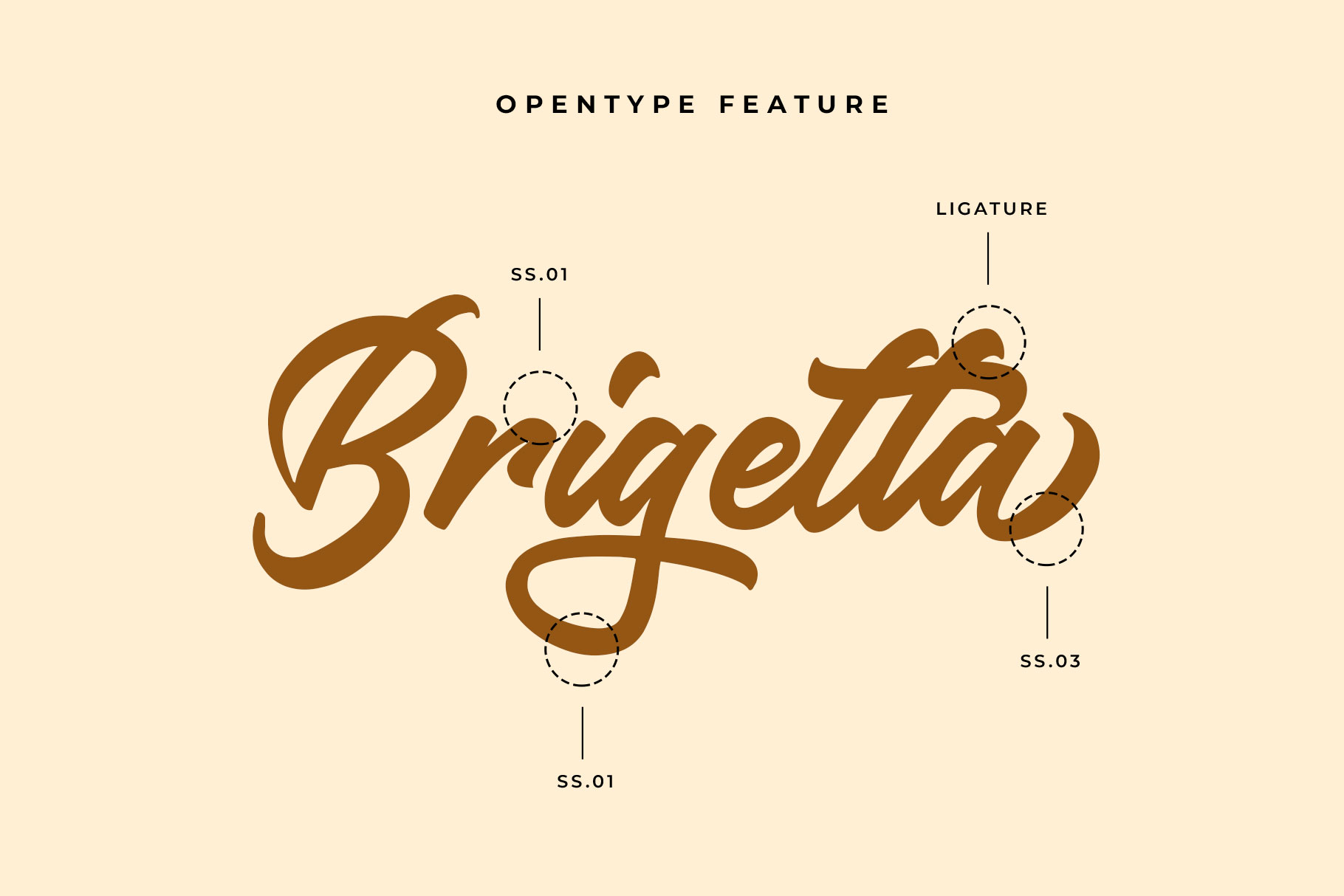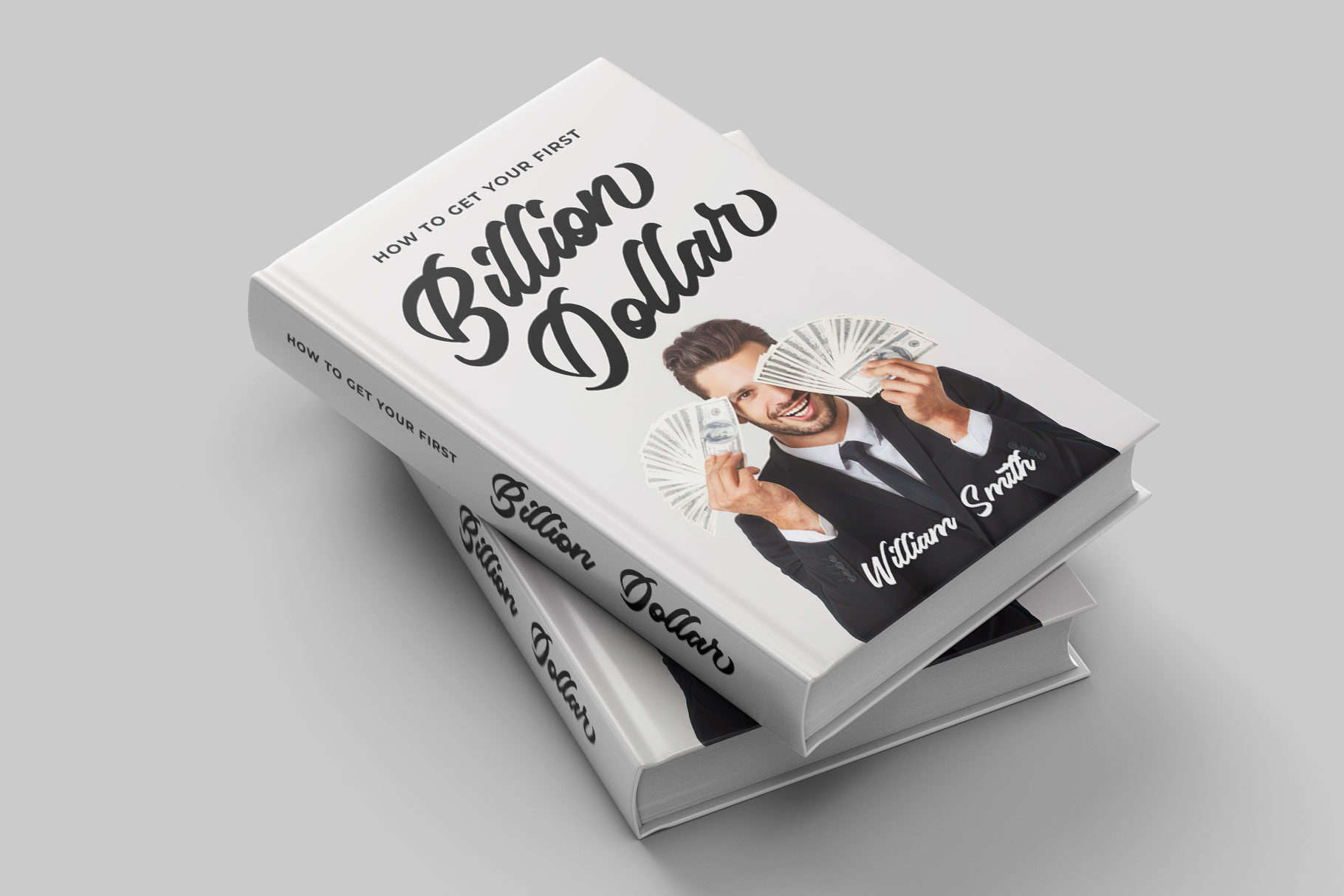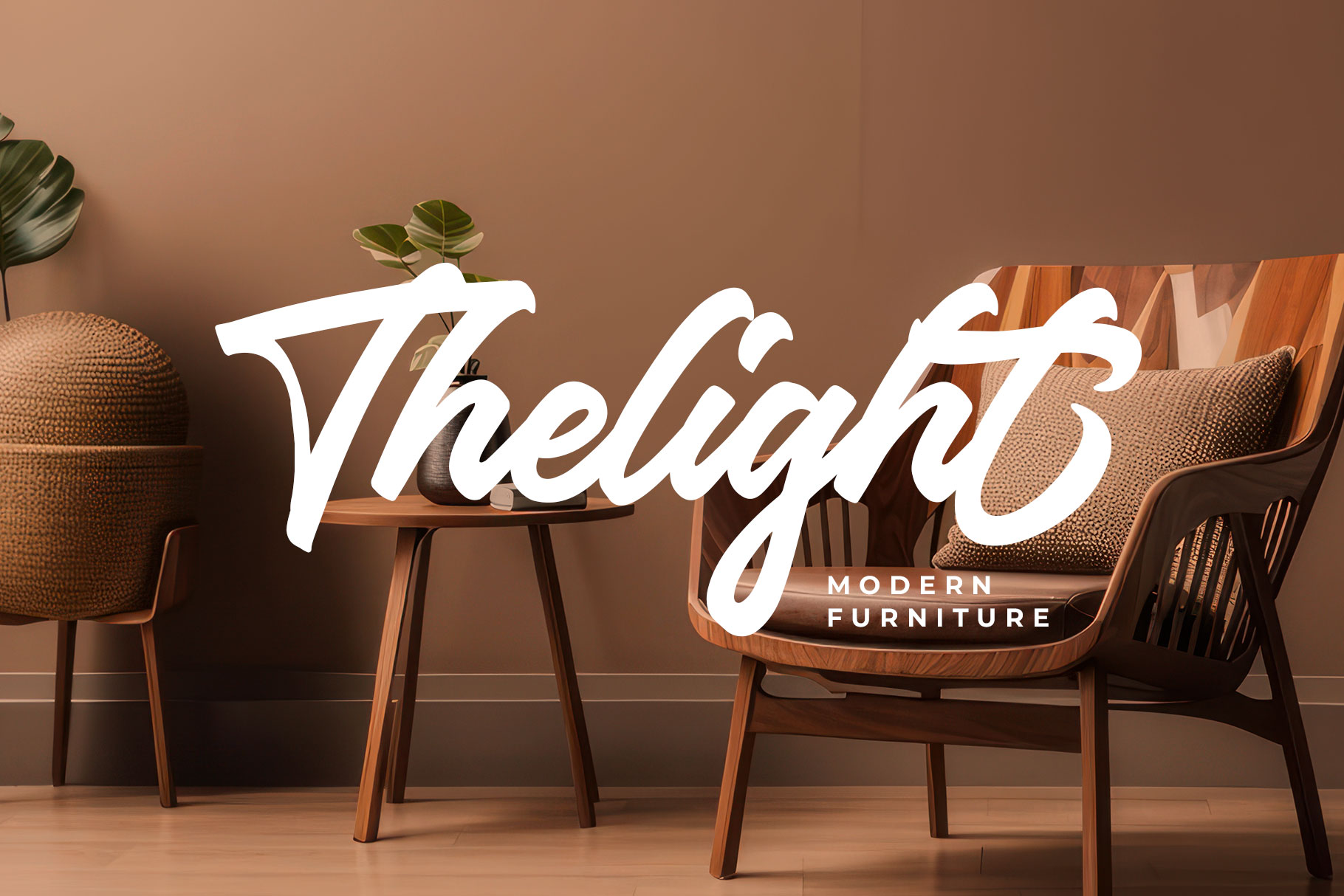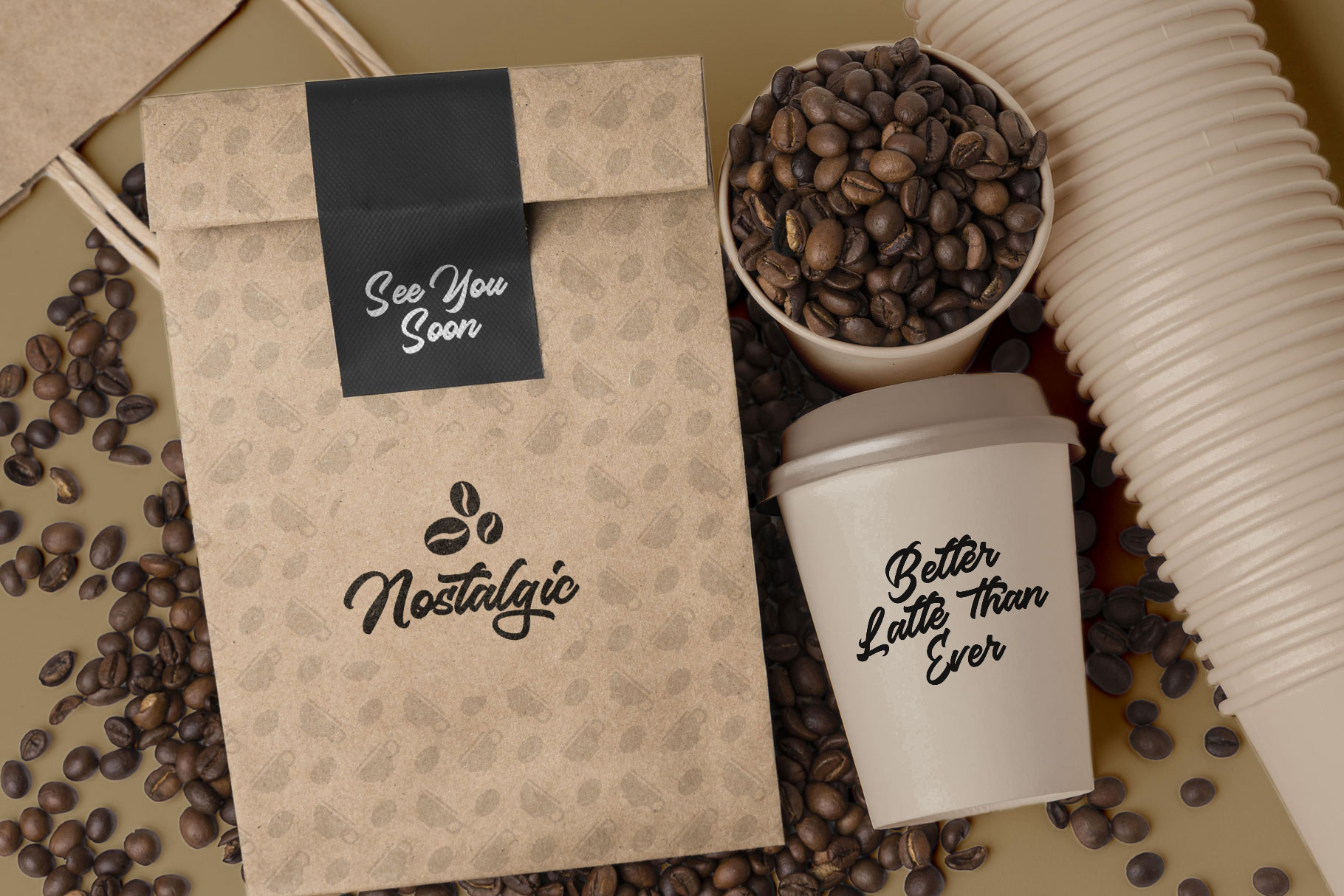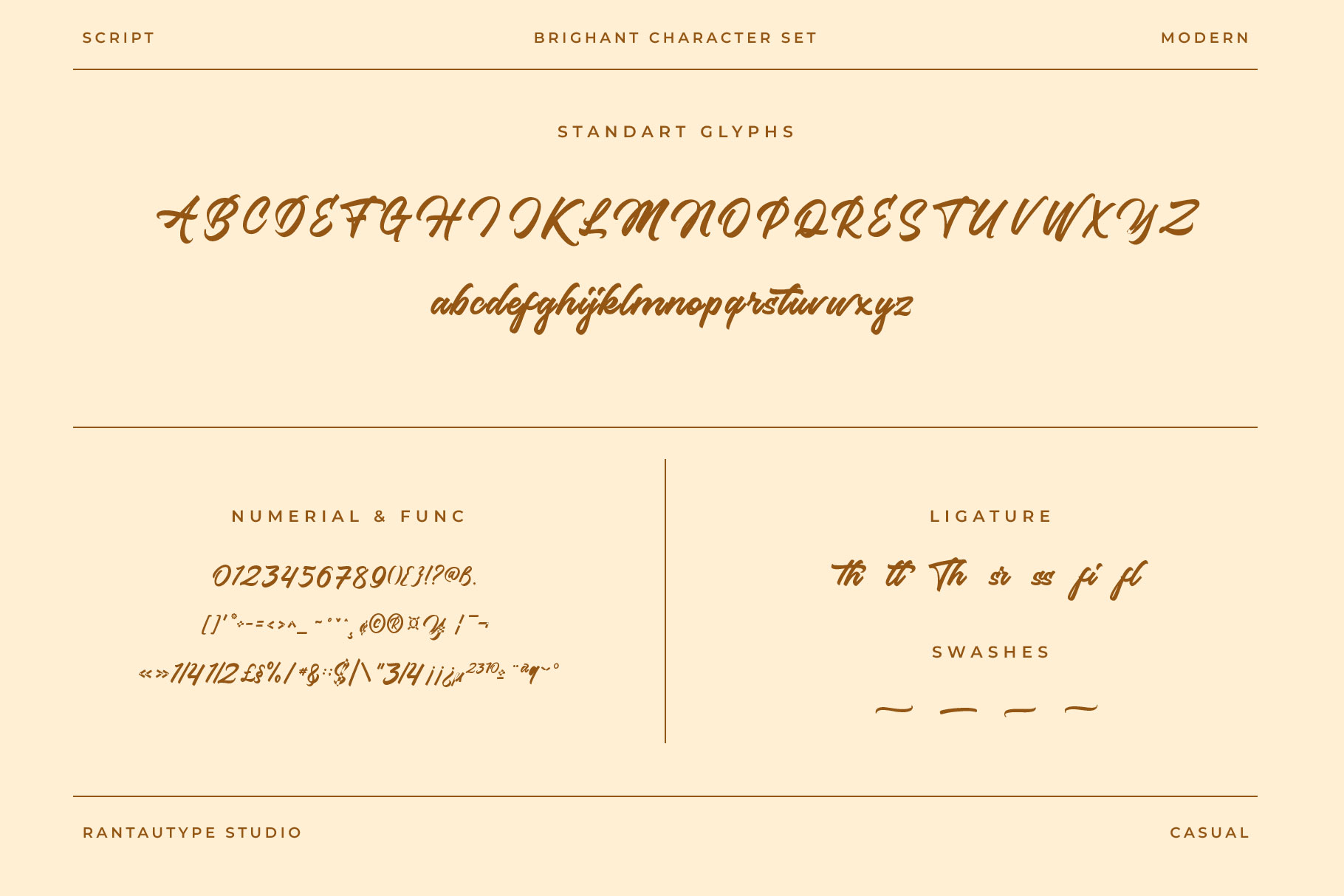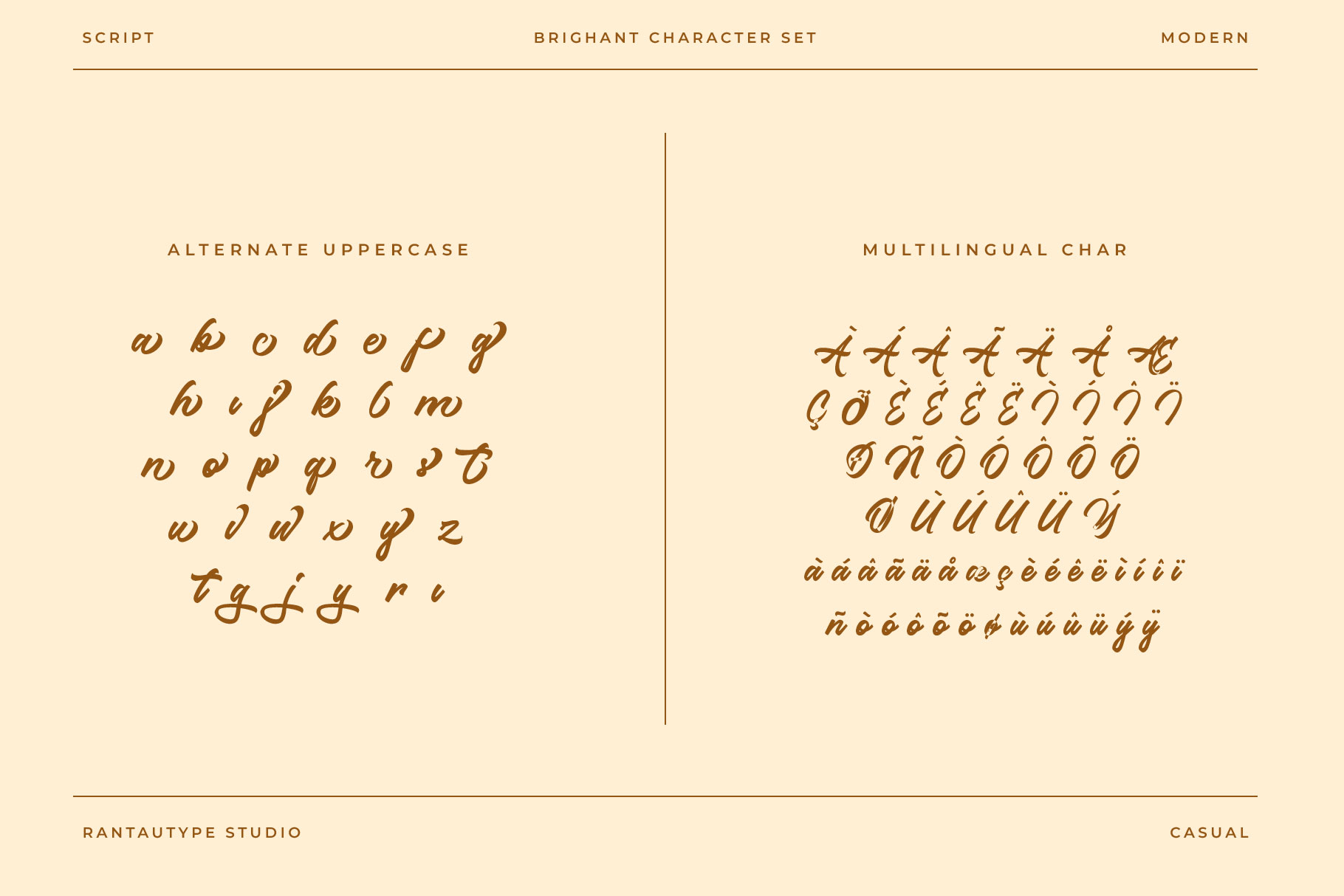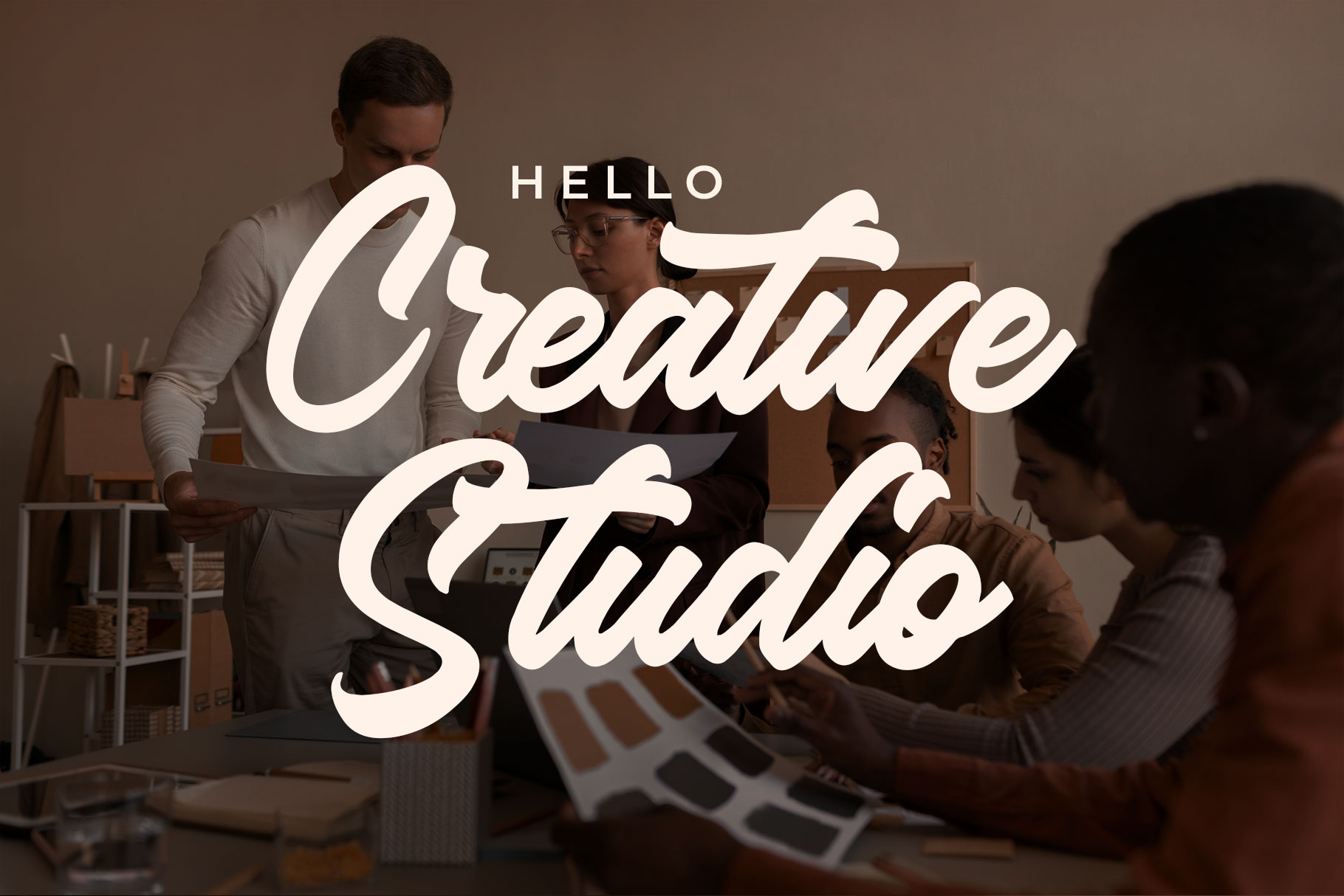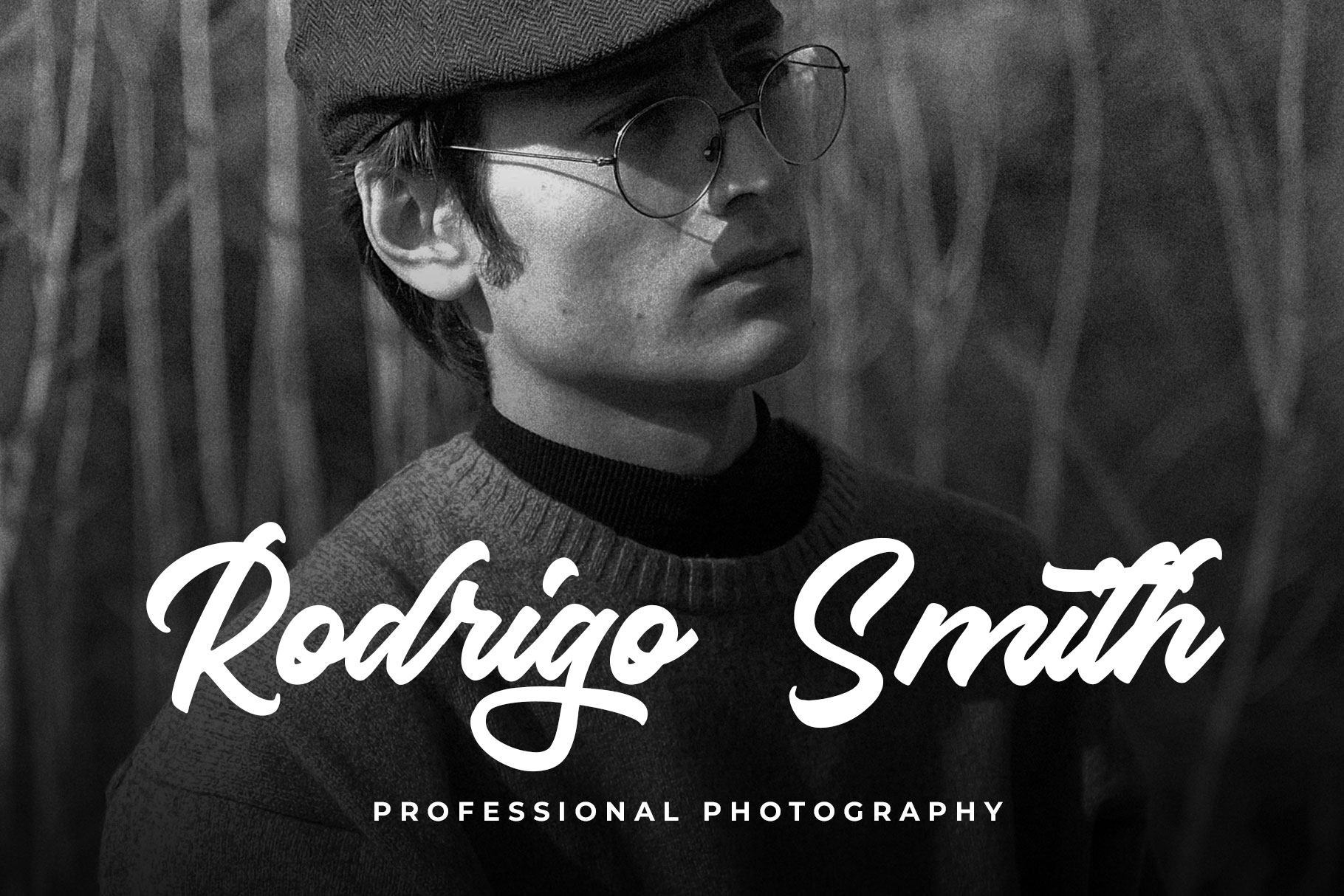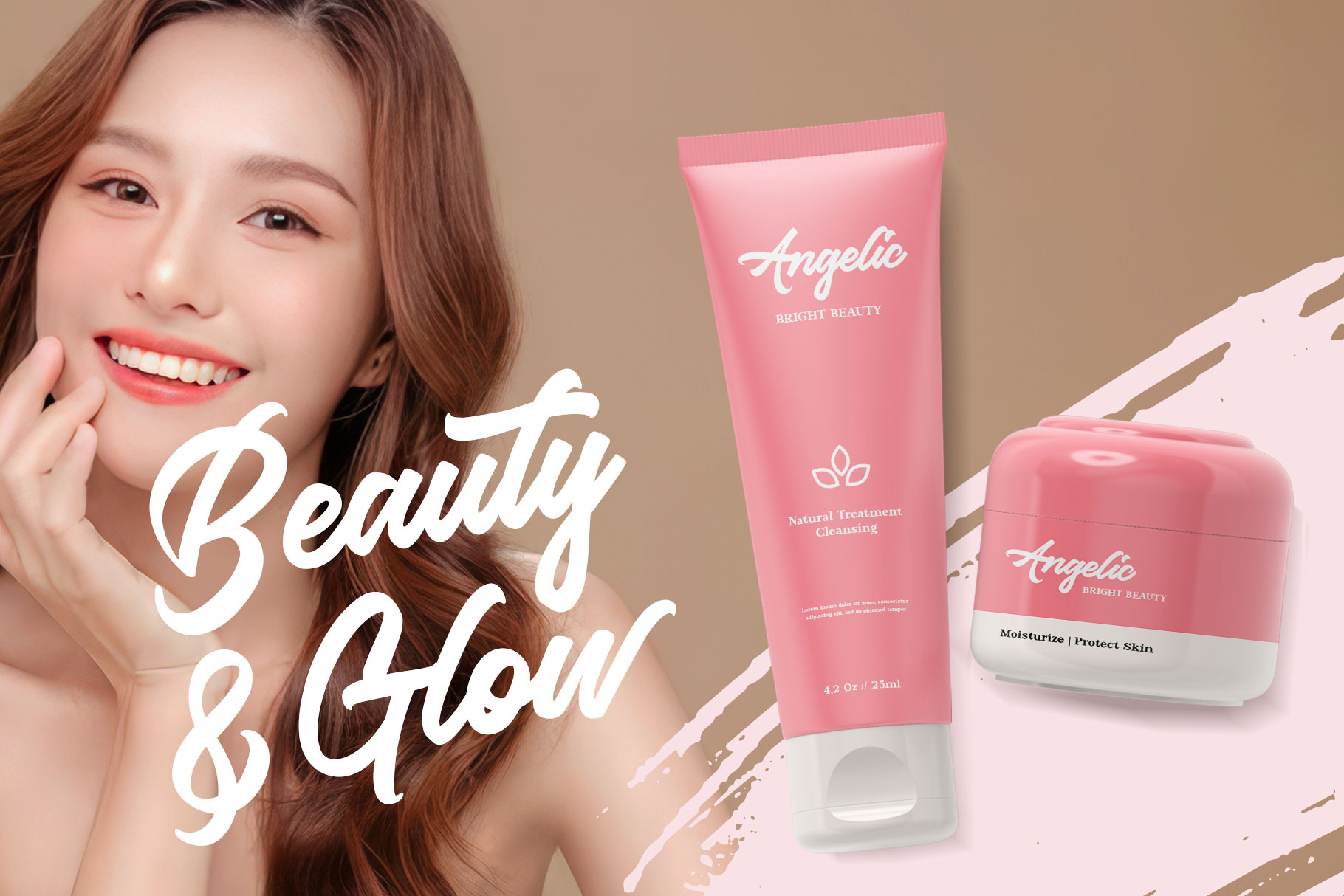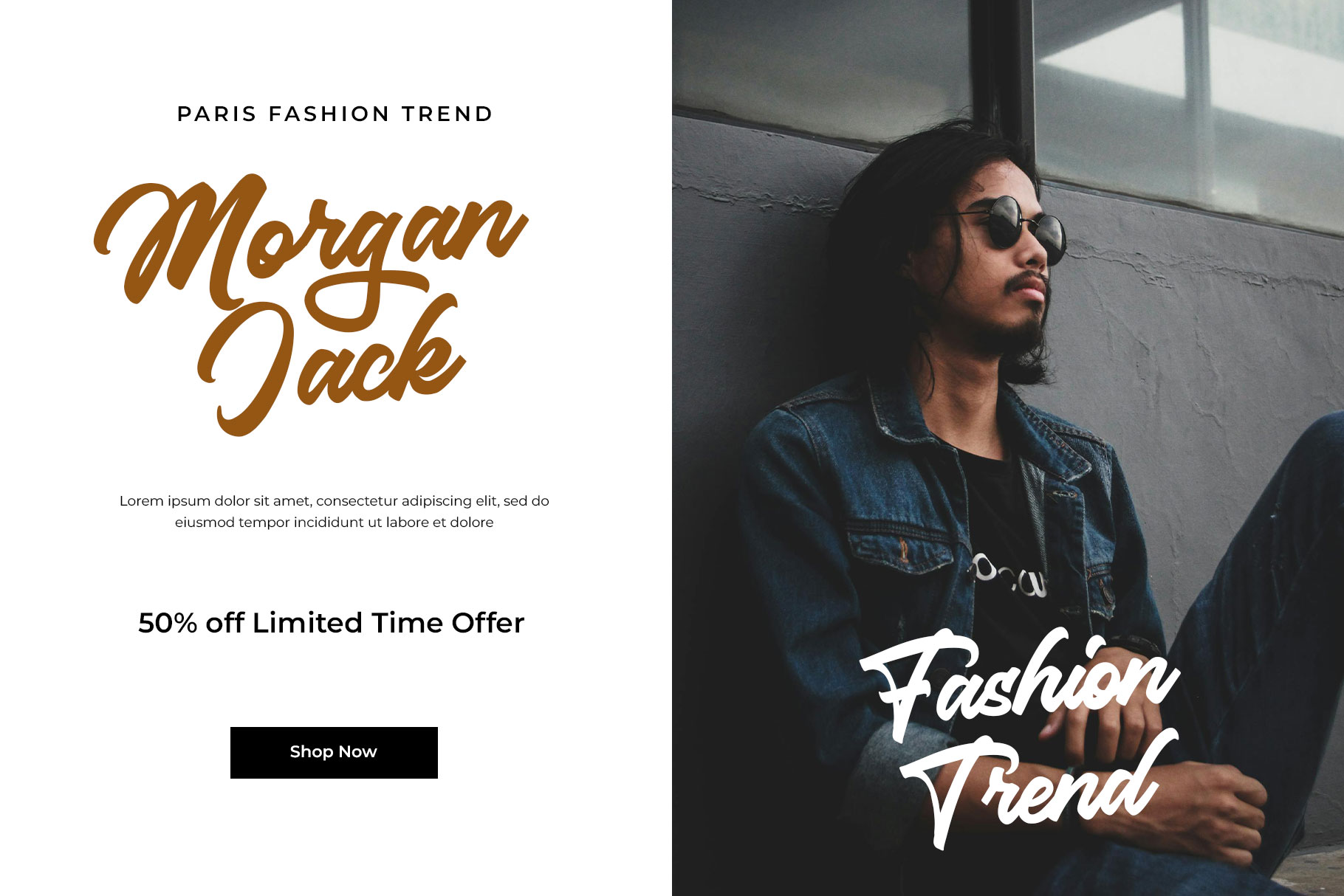
Brighant Business Script Font
Brighant is a business script typeface that looks modern with a soft curve and casual shape. Experience perfect visual form for your business to make it more stand out and memoriable with Brighant typeface, Belguri come with alternate, ligature and already support multilingual character.
Brighant is a perfect choice for any creative endeavor, chic, lifestyle design such as logos, advertisements, watermark on photography, stationery, branding project, display and magazine, invitation, corporate brand, product design, label, business project and many other project need handwriting taste.